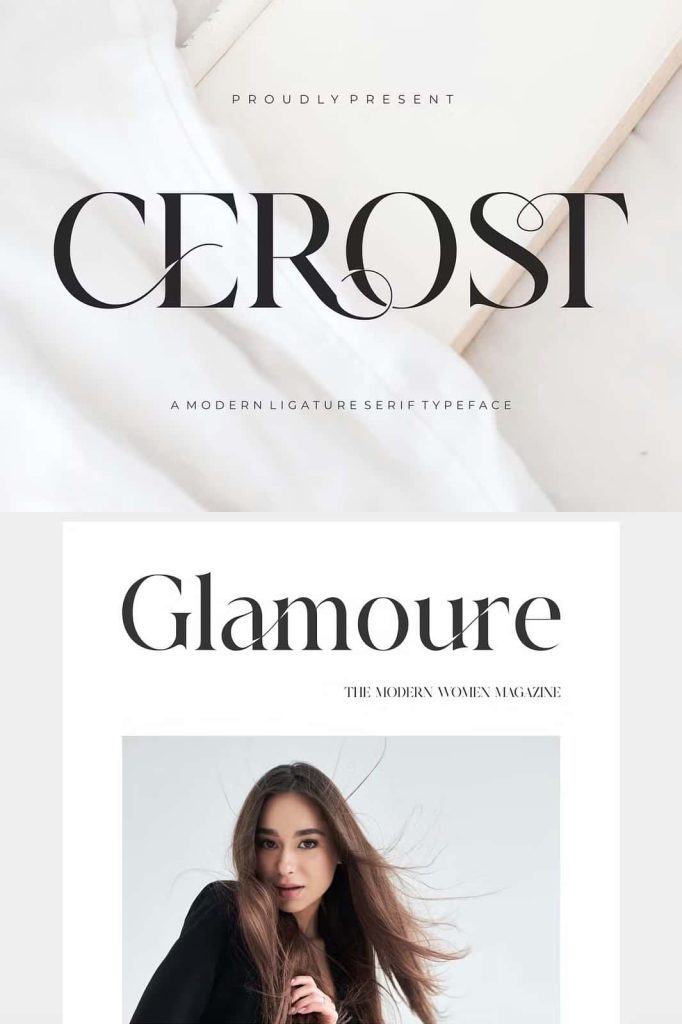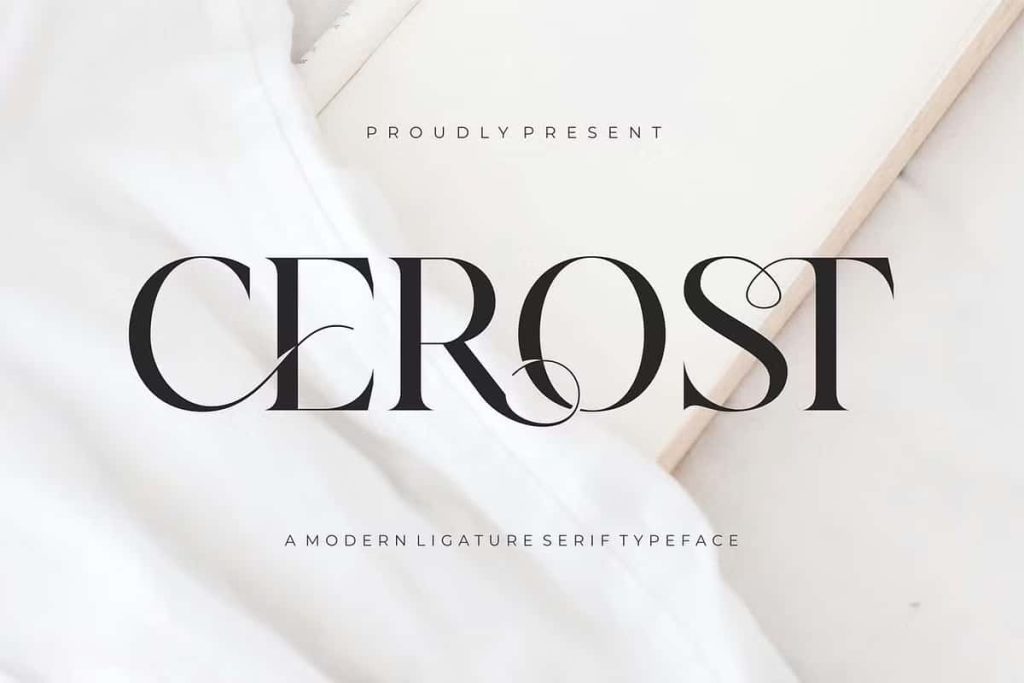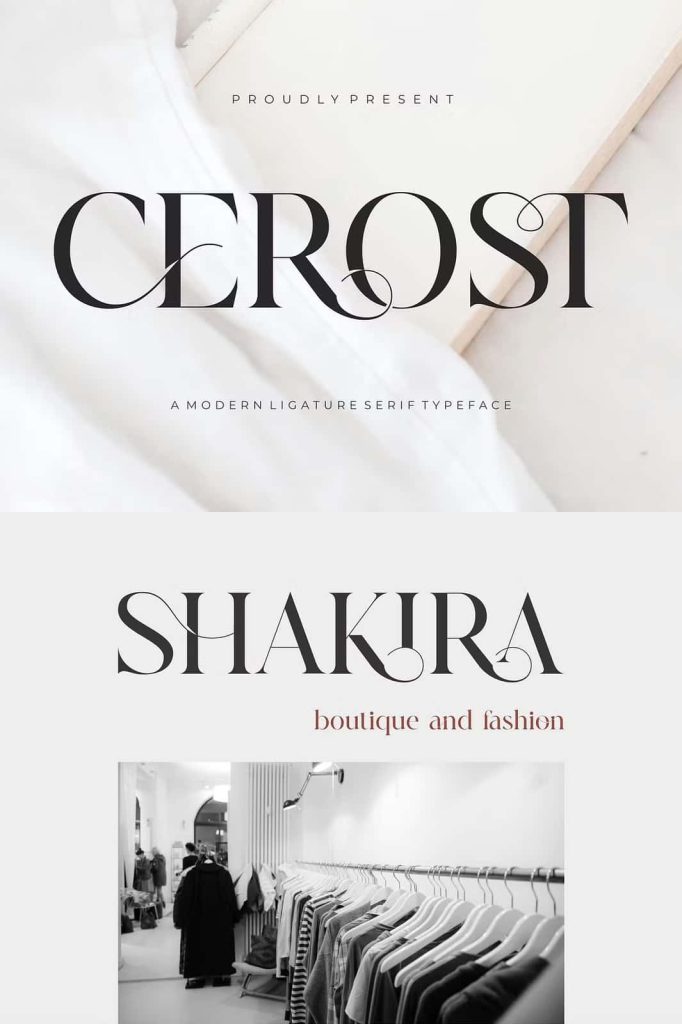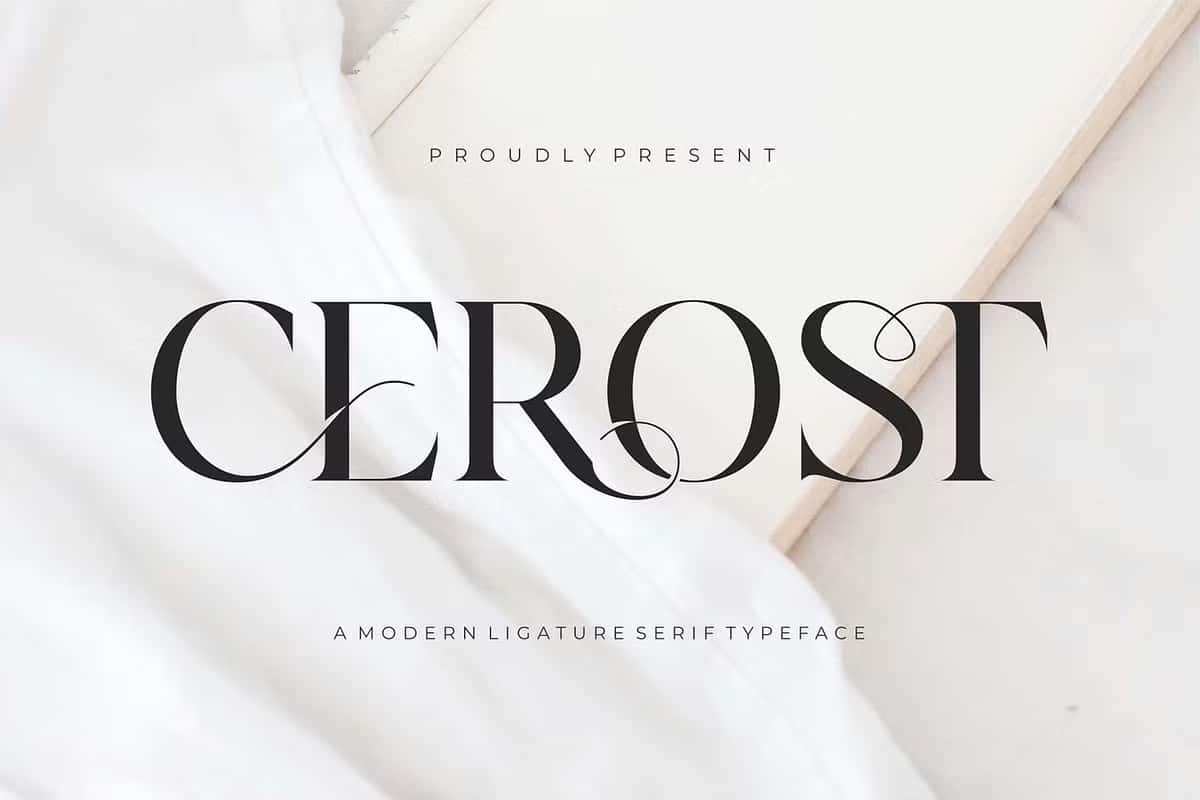
Cerost Modern Ligature Typeface – The Essence of Minimalist Elegance
Cerost Modern Ligature Typeface is a refined, minimalist typeface inspired by contemporary logo designs. Its clean structure and graceful ligatures make it the perfect choice for projects that demand sophistication and precision. Whether you are designing branding materials, templates, brochures, or advertising visuals, Cerost elevates your work with its modern elegance and balanced typography.
Designed for Modern Creativity and Professional Appeal
Every curve and connection in Cerost Modern Ligature Typeface is crafted with purpose. The font draws inspiration from modern minimalist aesthetics, creating a visual identity that feels fresh, intelligent, and professional. Designers can use Cerost to establish consistency and clarity across branding, editorial layouts, or digital interfaces. Its ligature design ensures natural flow between letters, adding a touch of refinement to any creative project.
From bold headlines to subtle body text, Cerost delivers adaptability and charm. Its geometric structure enhances readability, while the ligatures introduce character and uniqueness. This typeface is ideal for anyone looking to create a memorable visual impression without clutter or complexity.
Perfect for Branding, Advertising, and Elegant Design
Cerost Modern Ligature Typeface stands out in branding and advertising design. It’s ideal for companies and creators who want a logo or wordmark that communicates luxury, intelligence, and minimalism. The smooth letter transitions and precise line work make it a top choice for high-end beauty brands, luxury products, and fashion-oriented designs.
In addition to logos, Cerost performs beautifully in printed and digital materials. Use it to create striking brochures, catalogs, or business cards that project professionalism and modern appeal. The typeface also works well in video titles and social media visuals, offering a timeless and confident aesthetic for any campaign.
Bring Elegance to Every Creative Project
With its sleek ligature connections, Cerost brings a sense of craftsmanship to every letterform. The typeface transforms simple text into visual art, making it an excellent choice for invitations, magazine layouts, and website headers. Its balance of thin and thick strokes adds rhythm and motion, making every line more engaging and easy to read.
The minimalist influence ensures that your designs stay modern and uncluttered, while the artistic ligatures create a signature style that distinguishes your work. Cerost helps you maintain elegance and simplicity in your typography while leaving a memorable impression on your audience.
Multi-Purpose Font for Creative Professionals
- Inspired by famous minimalist logo designs.
- Perfect for branding, advertising, and editorial design.
- Ideal for brochures, templates, videos, and invitations.
- Offers elegant ligatures that enhance design flow.
- Works across print, web, and digital media.
Cerost Modern Ligature Typeface supports versatile creative expression across different design contexts. It fits seamlessly into beauty, fashion, interior design, and modern corporate branding. The font’s modern tone and refined ligatures create harmony and depth in every composition, ensuring a polished and professional outcome every time.
Elevate Your Design Vision with Cerost Typeface
If your goal is to design with clarity, elegance, and intention, Cerost Modern Ligature Typeface is your ideal choice. Its minimalist character and smooth ligature combinations give your work a sophisticated edge. Use Cerost to communicate confidence, style, and refinement in every project—whether you’re building a brand identity, designing marketing materials, or crafting elegant visuals f